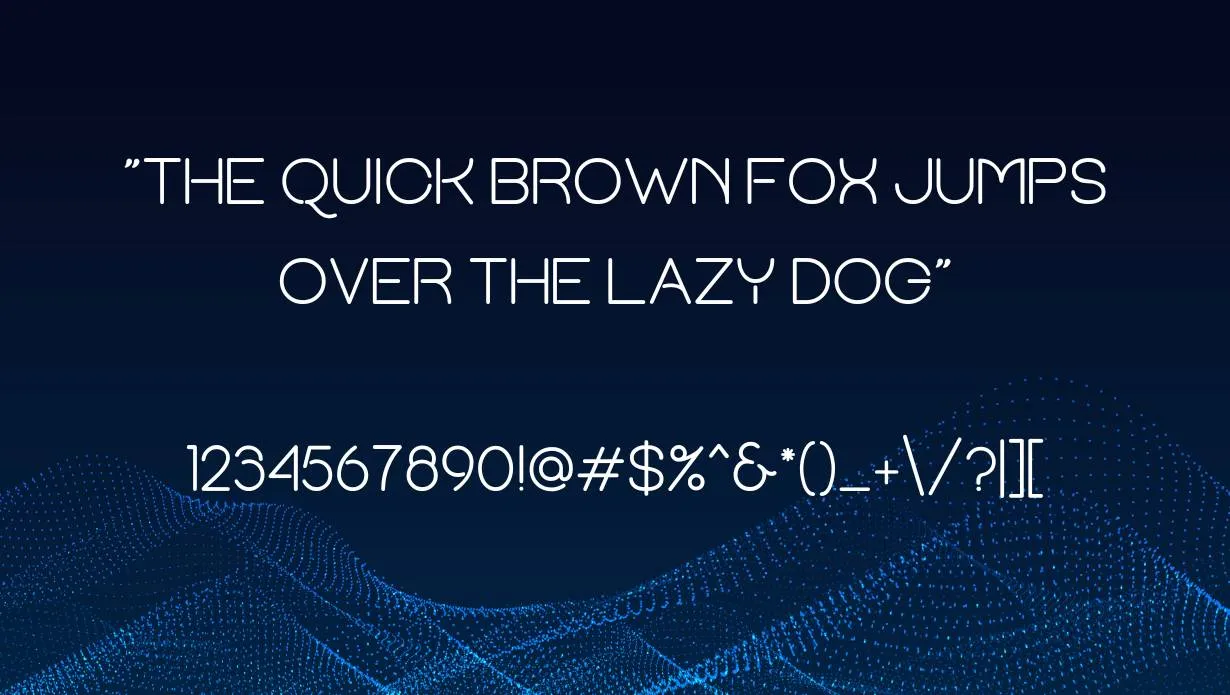
Quostige Sans Serif Font is a clean and versatile typeface designed for modern and professional designs. This font is designed and shared by Artza Graph. It’s an ideal choice for various projects, from web content to corporate documents.
The font encompasses uppercase and lowercase letters, numerals, punctuation, and special characters, ensuring a crisp and sophisticated appearance for your text. You may combine it with Linik Sans Font and make wonderful projects.
Name | Quostige Sans Serif Font |
Designer | Artza Graph |
Style | Sans Serif |